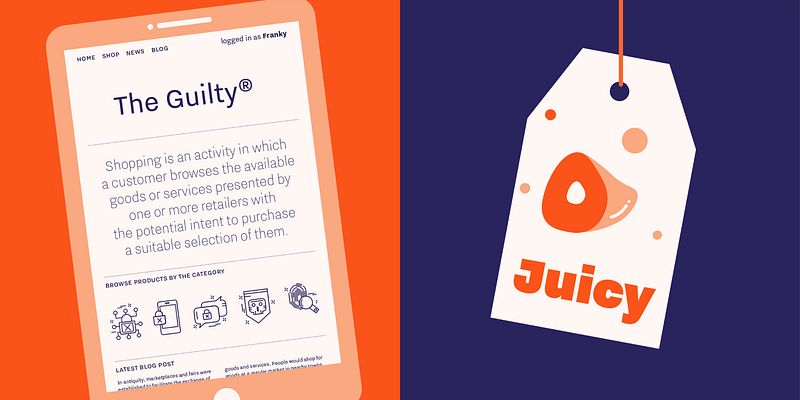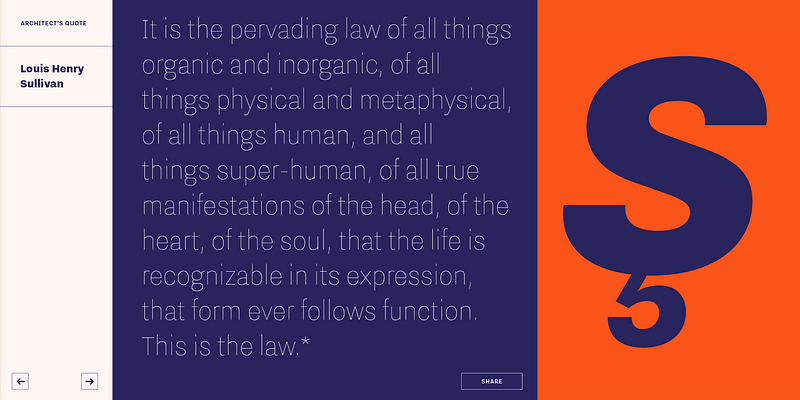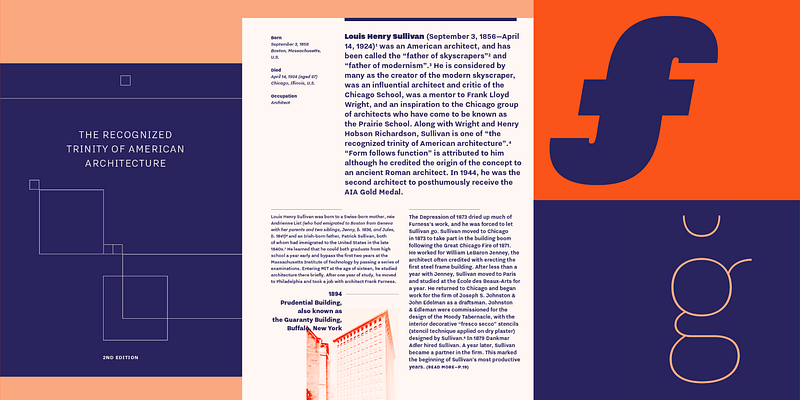
Nitti Grotesk forms part of Bold Monday’s extended Nitti suite, inspired by the earliest known sans serifs—the idiosyncratic English grots of the nineteenth century. It is the proportional sibling of Nitti, which gained prominence as the voice of Information Architects’ popular writing app, iA Writer. On the heels of the app’s success, iA asked about a proportional version of Nitti and, after multiple attempts, Pieter van Rosmalen finally landed on the right tack: he exaggerated Nitti Grotesk’s more grotesque qualities precisely where the monospaced Nitti deviated from them. Nitti Grotesk comes in seven text weights with matching italics and five display weights. Combine it with Nitti for a wide range of professional applications, as well as for websites, publications, branding, and corporate communications. Bold Monday, 2012–2019.